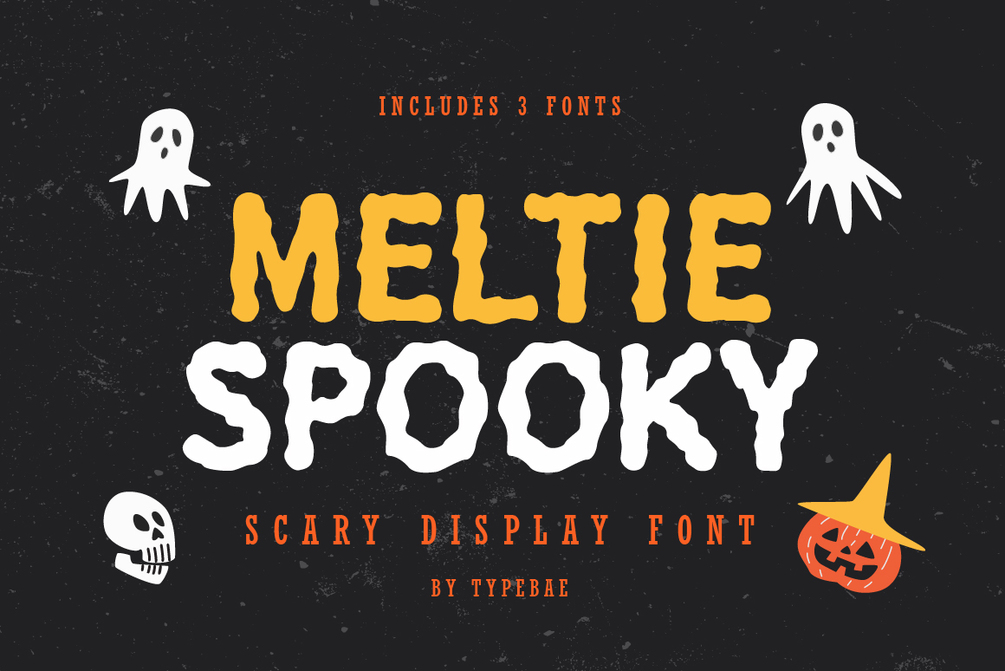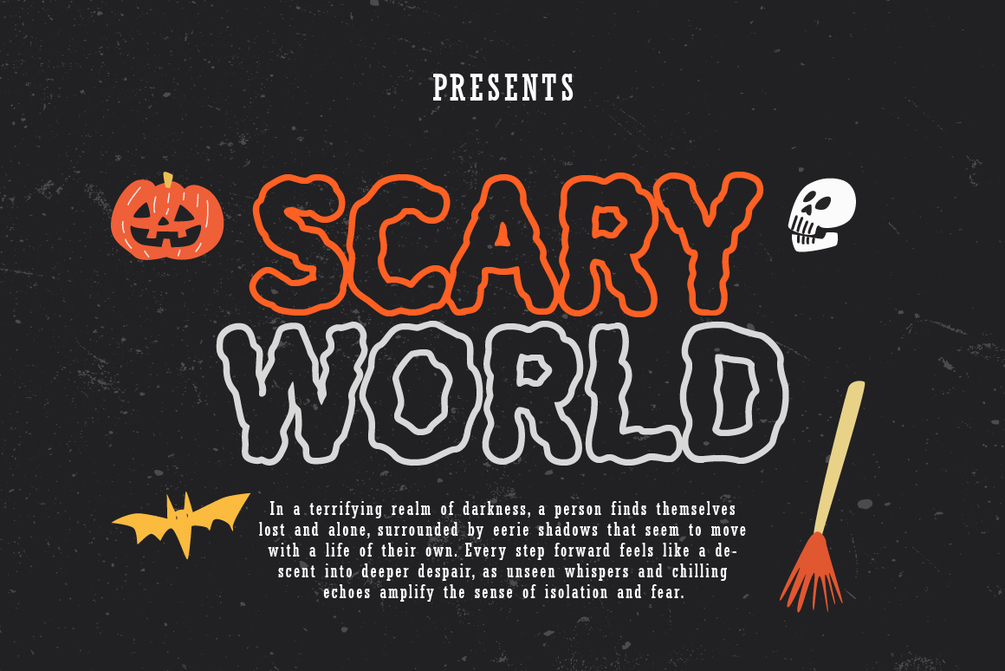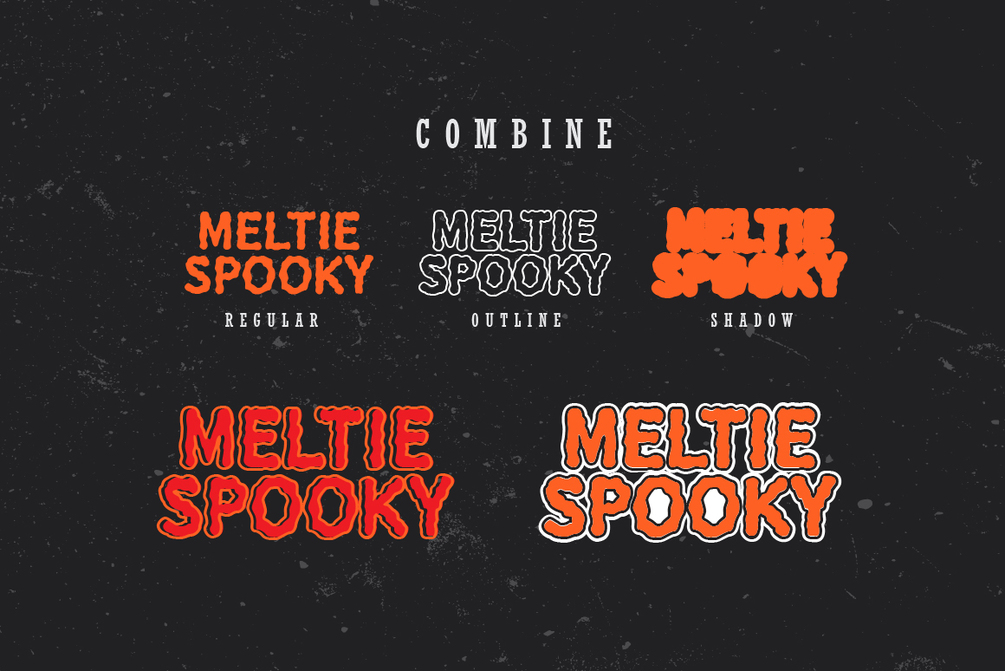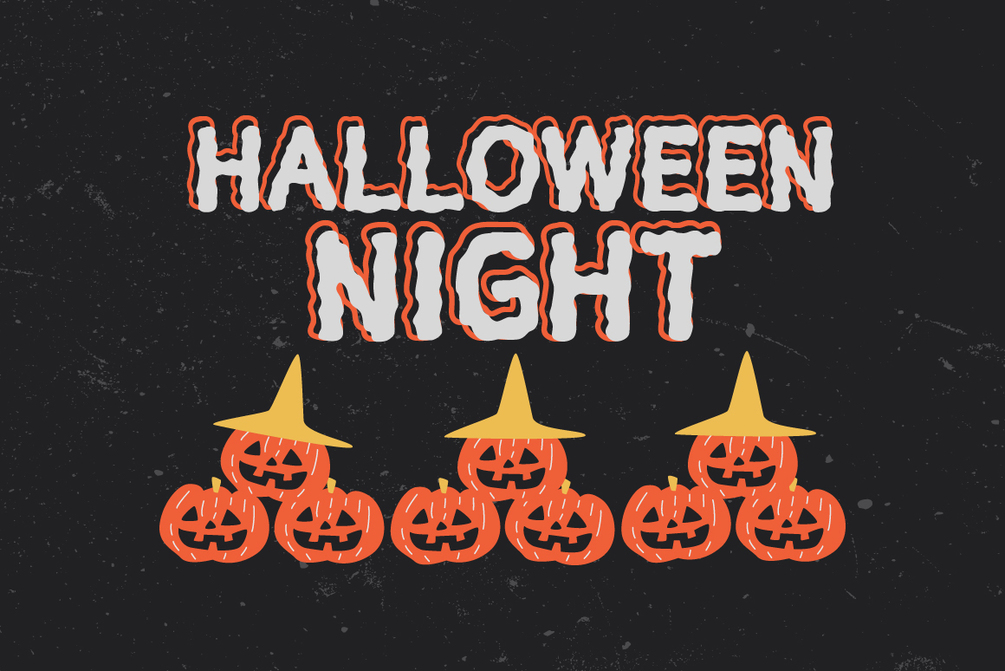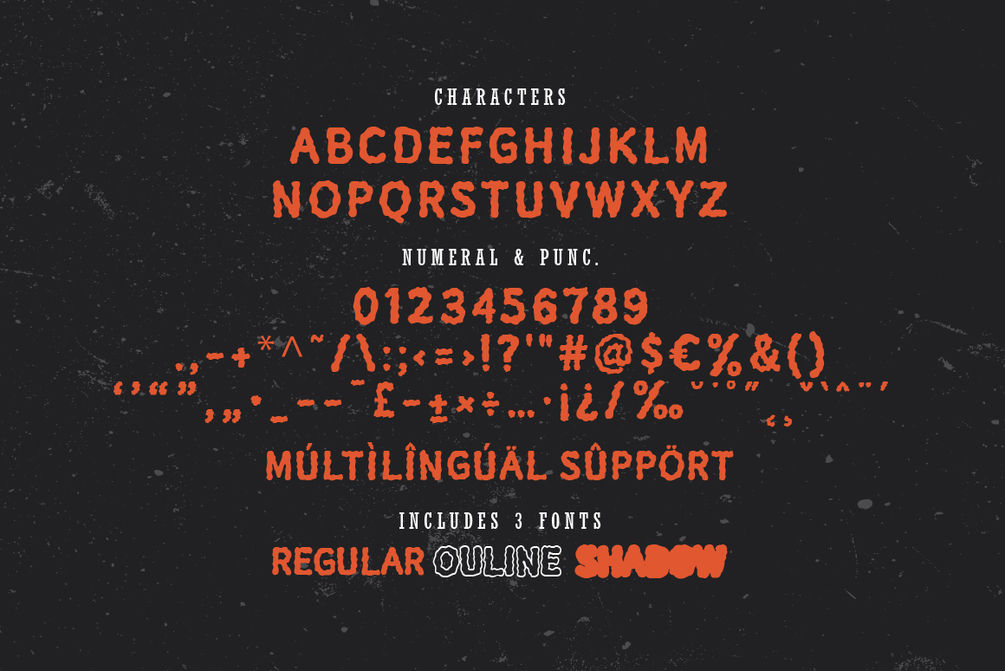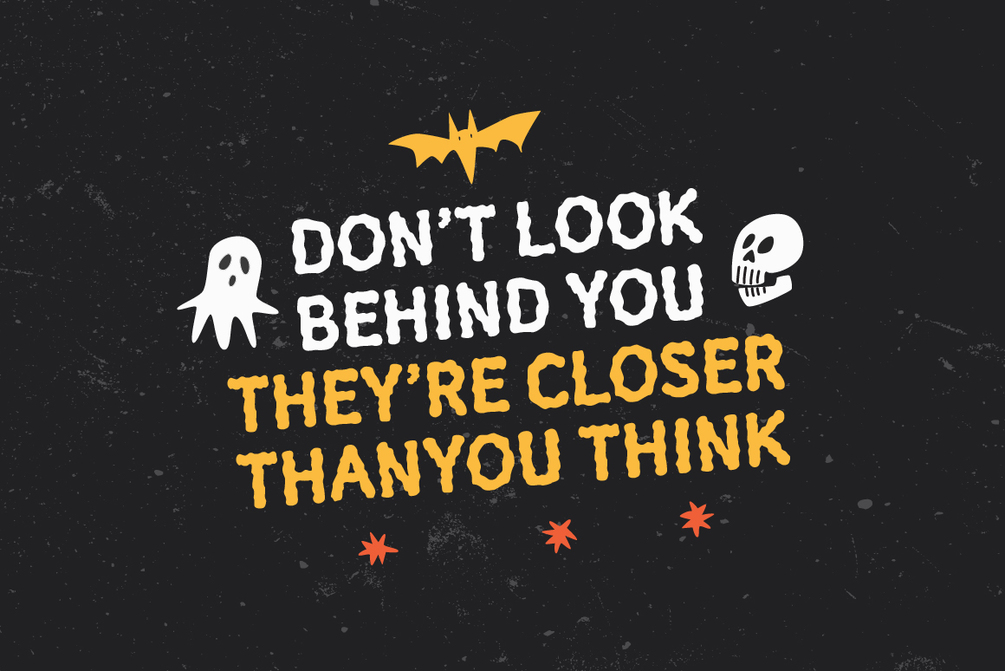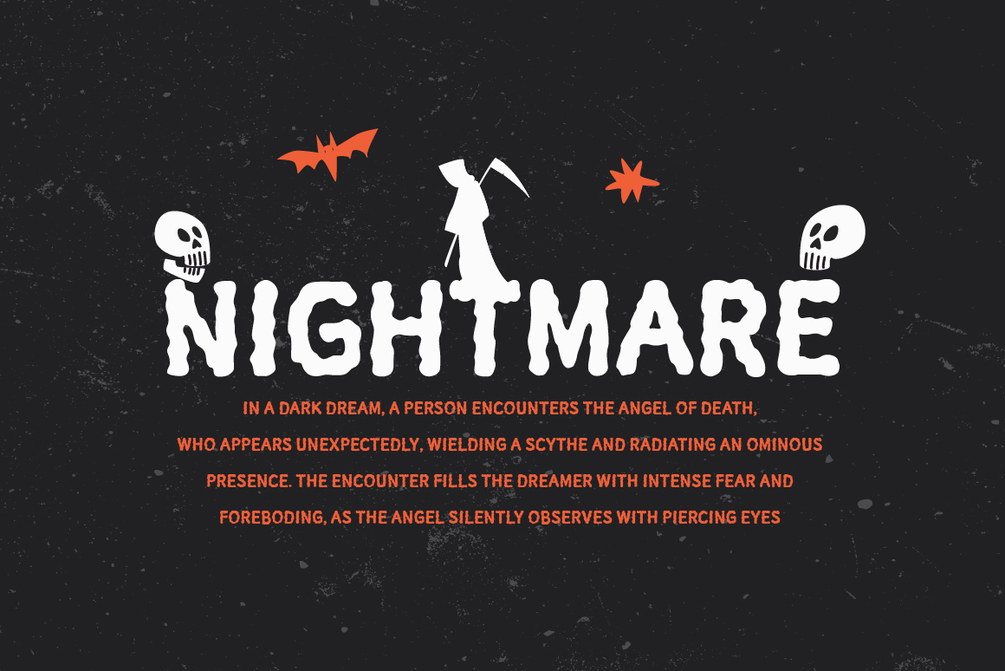
Meltie Spooky
Meltie Spooky Font is a unique display font that blends playfulness with a scary touch, creating the perfect Halloween vibe. Ideal for party invitations, haunted house posters, and spooky designs, this font adds a mysterious and thrilling feel that will make your projects stand out.